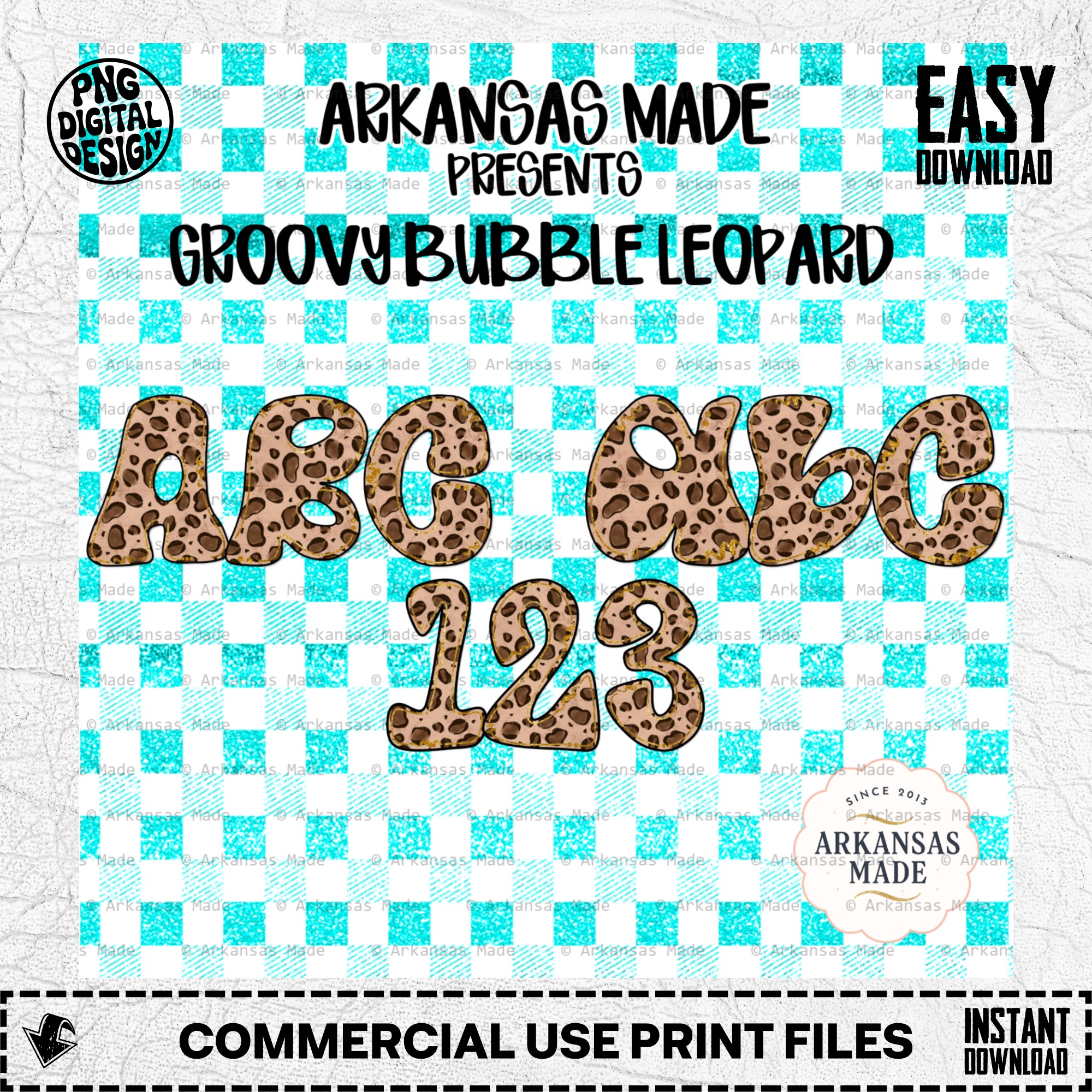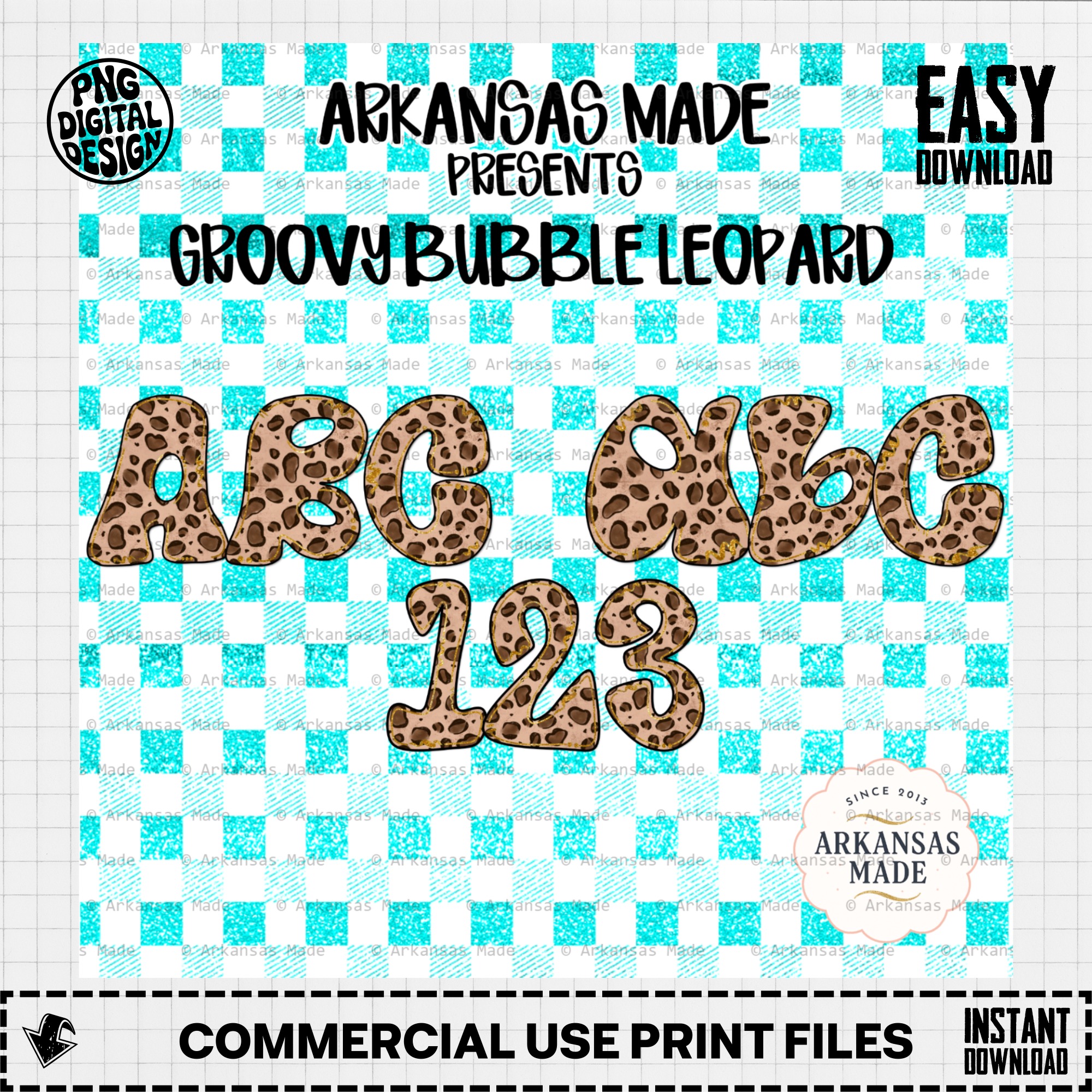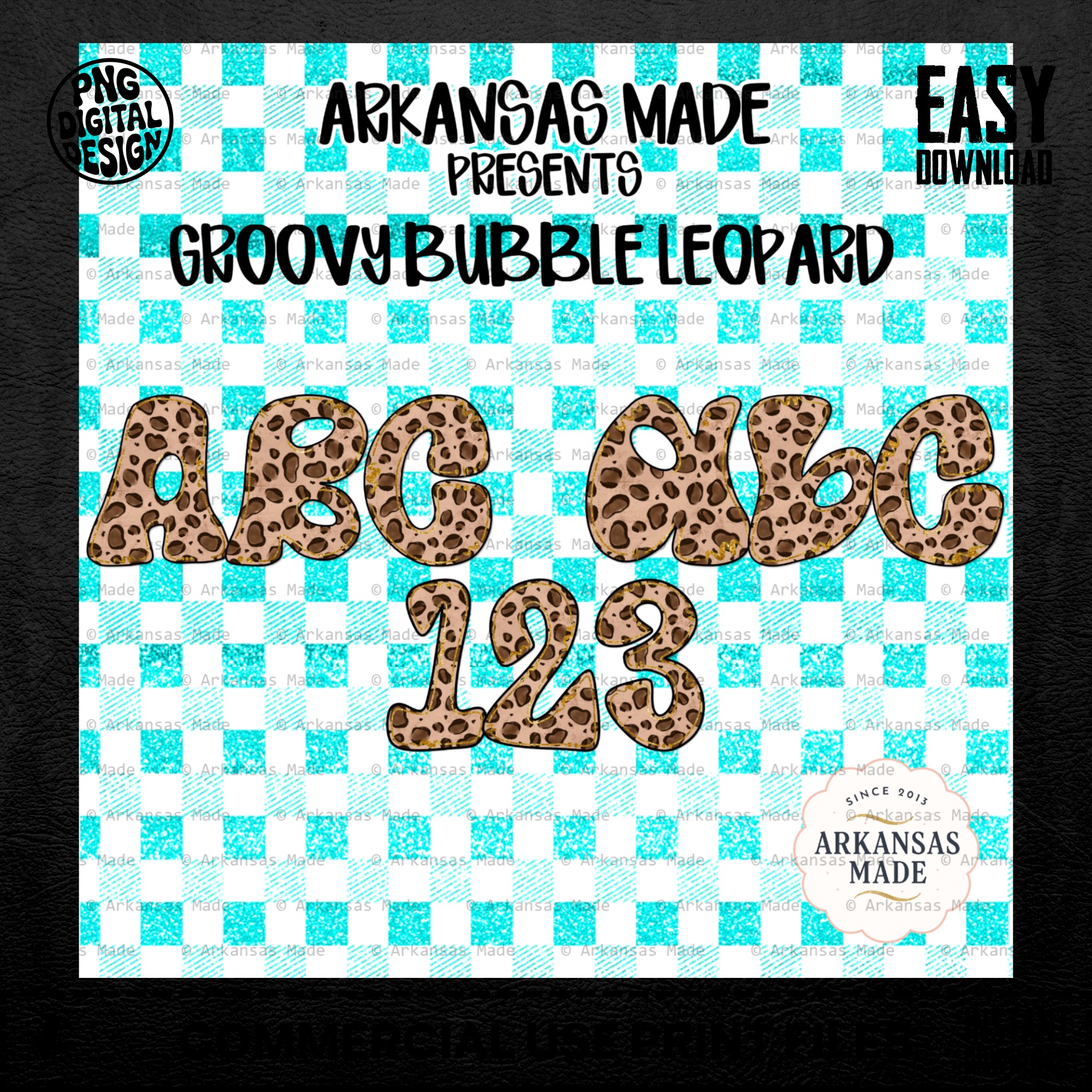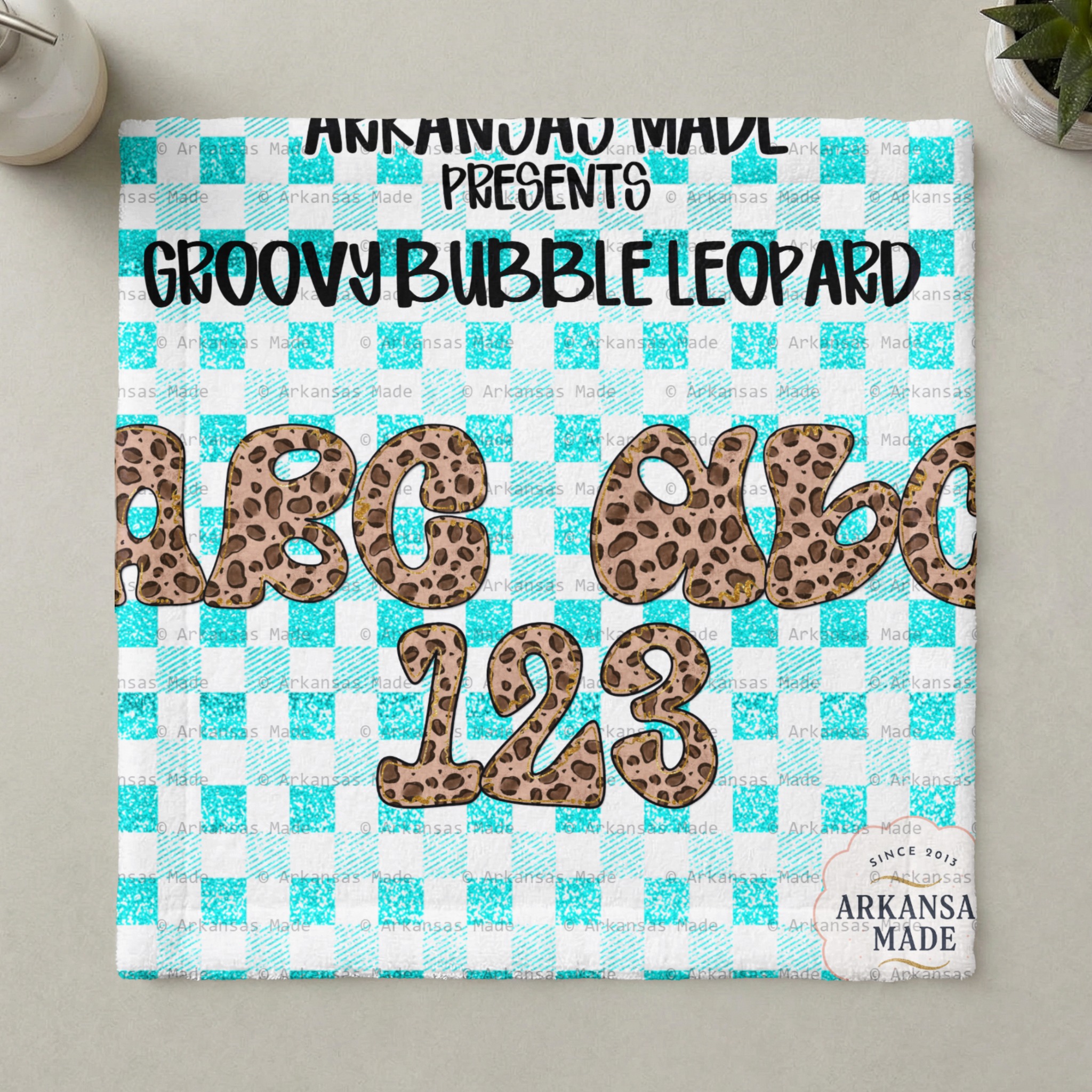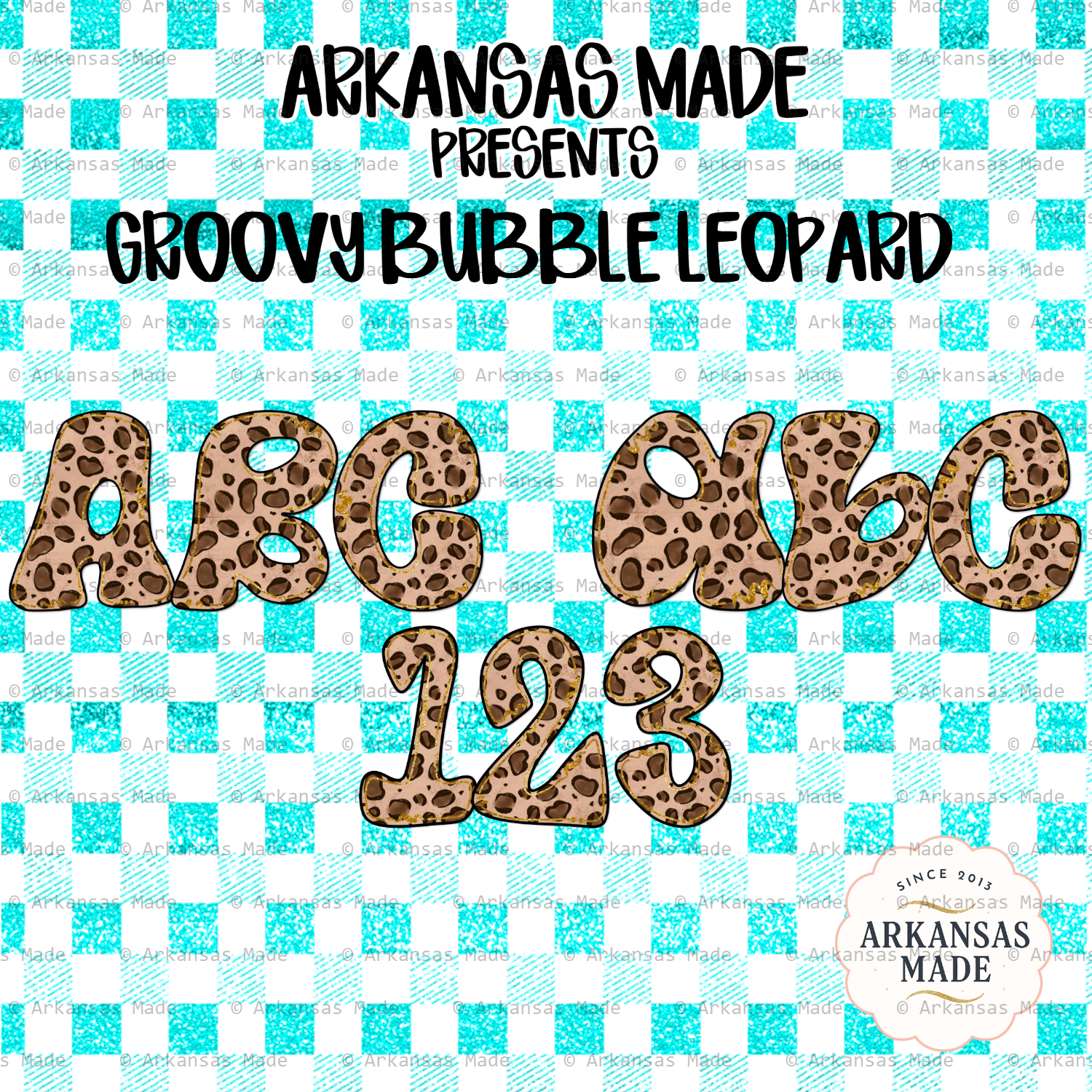
Unleash your creativity with this Groovy Leopard Bubble Alphabet PNGs Digital Alpha Set! Perfect for retro animal print projects, sublimation designs, and unique crafting. Embrace the playful 70s vibe with these chunky, eye-catching letters and numbers featuring a trendy leopard print and faux gold glitter effect. Ideal for crafters, small business owners, and DIY enthusiasts creating custom apparel, tumblers, or digital art. Design unique gifts for birthdays or special occasions with this versatile graphic asset.